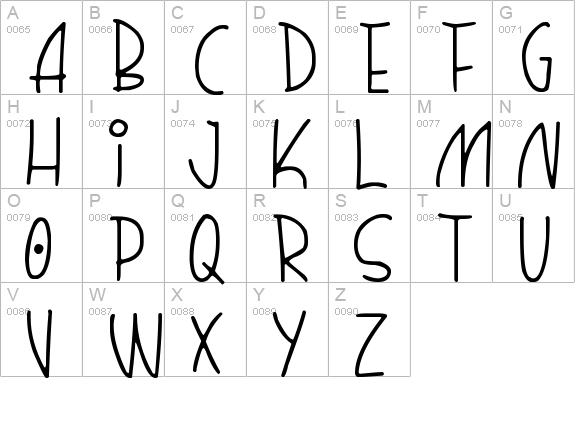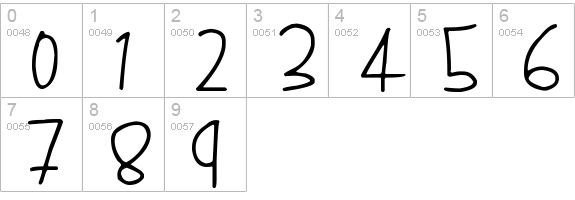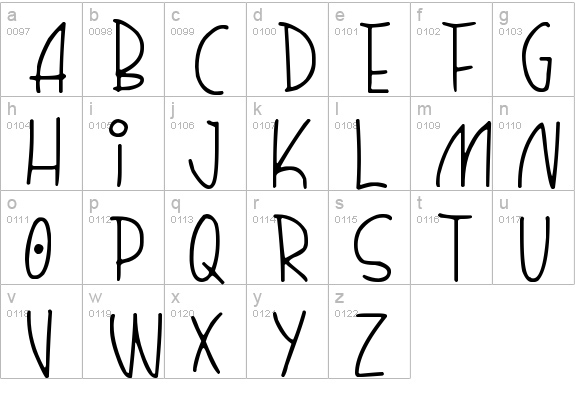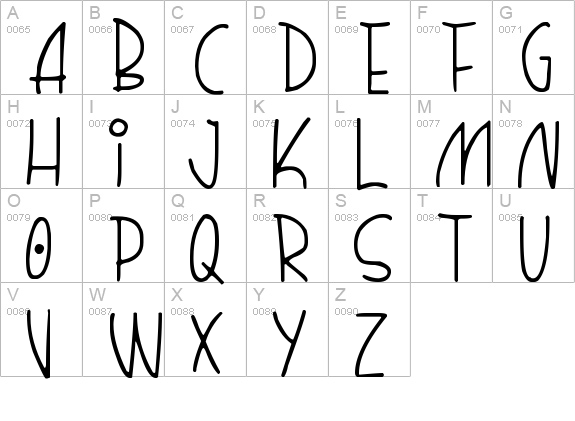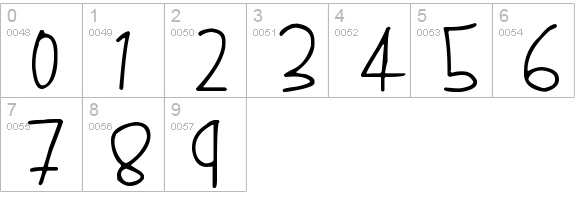
Quirky Thins Font Details
Quirky Thins is a free for personal use font in the Script > Handwritten category, designed by Darrell Flood. It has been downloaded 83 times and is available for Windows, Mac and Linux.
Quirky Thins font is a charming and playful typeface that adds a touch of whimsy to any design project. With its quirky and unique letterforms, this font is perfect for creating eye-catching headlines or adding a fun element to your designs. The thin weight of the font gives it a delicate and elegant appearance, making it ideal for a variety of creative projects.